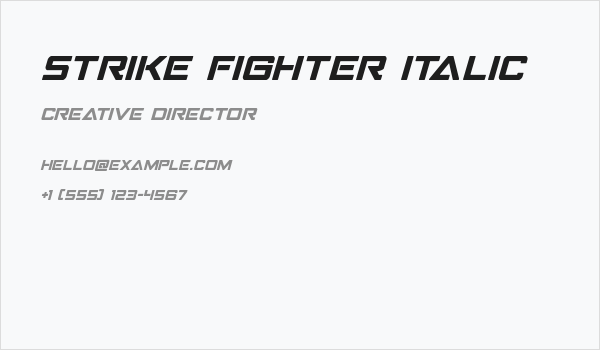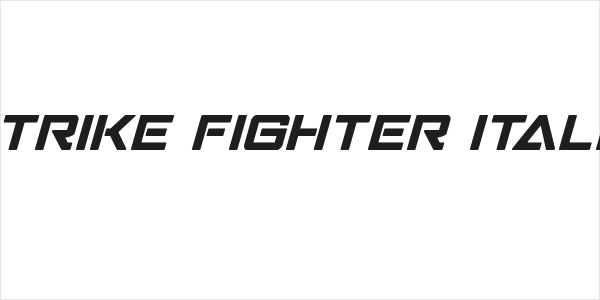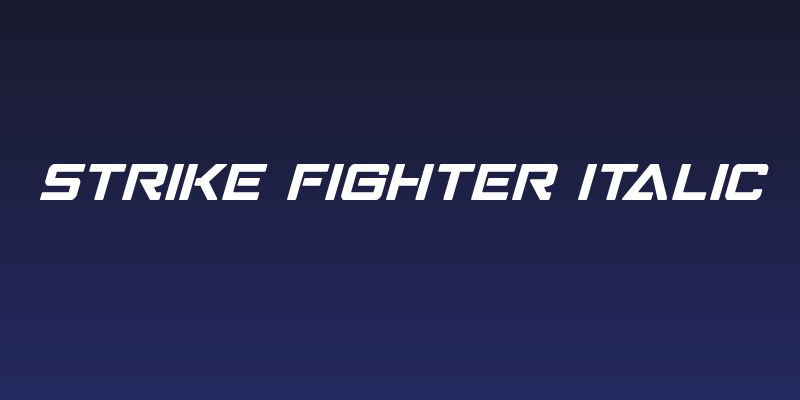
Strike Fighter Italic Font
Strike Fighter Italic Description
This dynamic and angular typeface exudes a sense of speed and modernity, characterized by its italicized and bold letterforms. The sharp edges and slanted orientation give it a futuristic and aggressive appearance, making it ideal for projects that require a sense of motion or cutting-edge technology. The uppercase and lowercase letters maintain a consistent style, with numbers and special characters seamlessly integrated into the design. The font's strong geometric structure ensures readability while adding a distinctive flair to any text.
| Proposed Projects | Ideal for sports branding, automotive design, video game titles, and tech-related logos. |